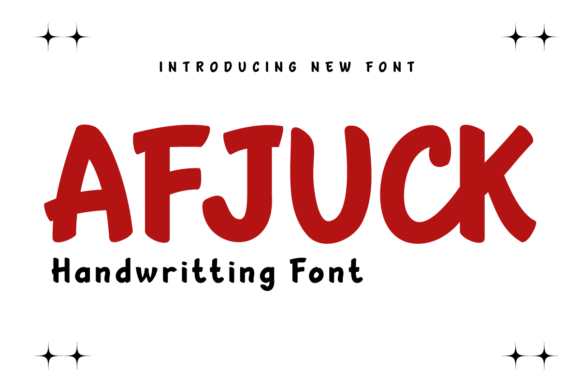
The Art of Handwritten Communication
Have you ever been inspired by the unique charm of handwritten notes and wished you could infuse that same character into your design projects? We’ve all been there – stuck in a sea of generic fonts, yearning for something that truly sets our work apart. That’s where the AFJUCK Font comes in – a captivating display typeface that beautifully captures the essence of authentic handwriting.
With its fluid ligatures and alternate characters, AFJUCK empowers designers to craft distinct compositions that speak to their audience in a language all their own. Whether you’re creating invitations, branding materials, or anything in between, this versatile font is the perfect choice for seamless communication across cultures. By embracing the creative power of AFJUCK Font, you can redefine your designs with the elegance of handwritten artistry and take your projects to the next level.
Afjuck Font Key Features
- Font Family: Afjuck is a sans-serif font family designed for digital use.
- Unique Characteristics: Afjuck features a clean and modern design with a distinctive x-height, making it highly legible at small font sizes.
Afjuck Font Review
Overall, I found the Afjuck Font to be a mixed bag. While it has some unique qualities, it also has some limitations that may make it difficult to use in certain situations.
- Unique design aesthetic: The Afjuck Font has a distinctive and eye-catching design that can add a touch of personality to any project.
- High-quality rendering: The font renders well in most situations, with clear and crisp lines.
- Support for various languages: The font supports a wide range of languages, making it a good choice for projects that require multilingual support.
- Limited font sizes: The font may not render well at very large or very small font sizes, which can be a limitation for certain projects.
- Some letterforms are unclear: A few of the letterforms in the font are not as clear or legible as they could be, which can make them difficult to read.
- No italic or bold variants: The font does not include italic or bold variants, which can make it difficult to add emphasis or hierarchy to text.
Overall, the Afjuck Font is a good choice for projects that require a unique and eye-catching design aesthetic. However, its limitations may make it difficult to use in certain situations. With some careful selection and use, it can be a valuable addition to any designer’s toolkit.
Afjuck Font is ideal for:
1. Creating unique and eye-catching headlines.
2. Adding a touch of elegance to your designs.
3. Making a statement in your branding materials.
Tips for Getting the Most Out of Afjuck Font
1. Experiment with different font sizes and styles to create a balanced design.
2. Use Afjuck Font in combination with other fonts to add visual interest.
3. Play with the font color to create contrast and make your design pop.
Alternatives to Afjuck Font
Great Vibes Font is a beautiful, elegant script font that is perfect for creating a romantic and whimsical feel. It’s ideal for use in wedding invitations, greeting cards, and other designs where a touch of sophistication is needed.
Compared to Afjuck Font, Great Vibes Font has a more refined and polished look, making it suitable for a wider range of applications. While Afjuck Font is great for bold, eye-catching headlines, Great Vibes Font excels at creating subtle, elegant typography.
Pacifico Font is a modern script font that conveys a sense of relaxation and tranquility. It’s perfect for use in beach-themed designs, travel brochures, and other applications where a laid-back vibe is desired.
Compared to Afjuck Font, Pacifico Font has a more relaxed and casual feel, making it suitable for designs that require a sense of ease and comfort. While Afjuck Font is great for creating bold, attention-grabbing headlines, Pacifico Font excels at creating smooth, flowing typography.